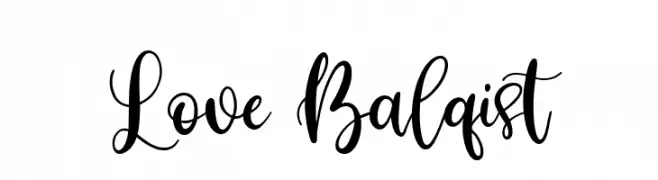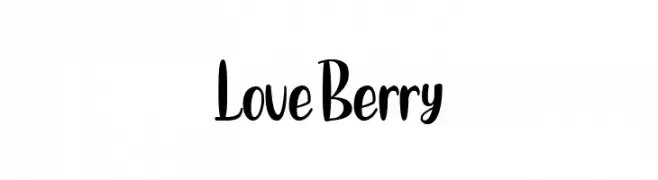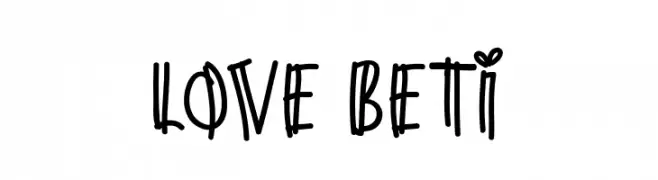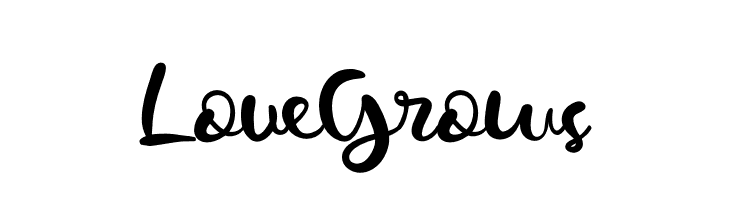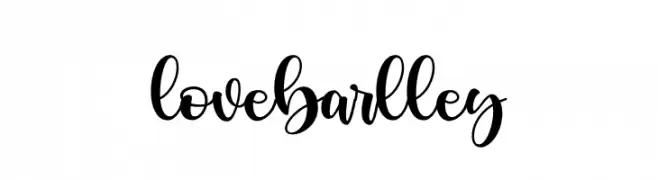
A playful, heart-filled decorative font with bold, rounded letters.
A playful, bold, hand-drawn font with dynamic strokes and whimsical flourishes.
A playful, heart-filled decorative font with a whimsical and romantic style.
A cursive, handwritten font with elegant loops and swashes.
A playful and elegant script font with decorative swashes.
A fluid and elegant script font with smooth, flowing lines and graceful curves.
A playful, handwritten-style font with bold, rounded characters.
A playful, handwritten font with bold, irregular strokes and whimsical details.
A playful, handwritten font with bold, flowing strokes and a casual aesthetic.
An elegant and fluid script font with a handwritten feel.